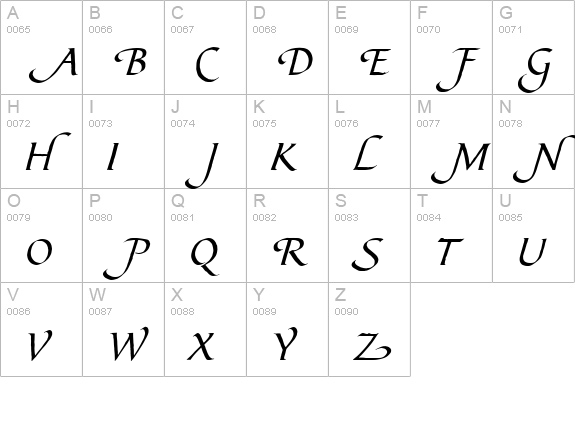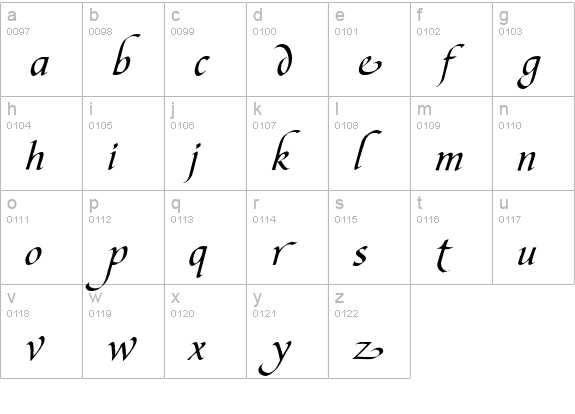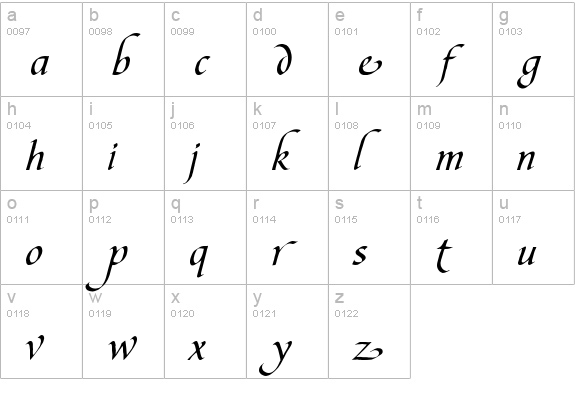
CalligraphScript-Swash-Regular is the standard, neutral variant in the CalligraphScript typeface family \xE2\x80\x94 well suited to general body text, paragraphs, and standard typographic work.
CalligraphScript-Swash-Regular is a stunning and elegant font that exudes sophistication and artistry. Its delicate strokes and beautiful swashes make it perfect for adding a touch of luxury to any design project. Whether you're creating wedding invitations, branding materials, or elegant signage, this font will elevate your work to the next level. What's even better is that CalligraphScript-Swash-Regular is available for free download at FontsMarket.com. This means you can easily access this exquisite font and use it in your projects without any cost. Don't miss out on the opportunity to enhance your designs with this beautiful typeface. Download CalligraphScript-Swash-Regular today and watch your creations come to life with elegance and style.